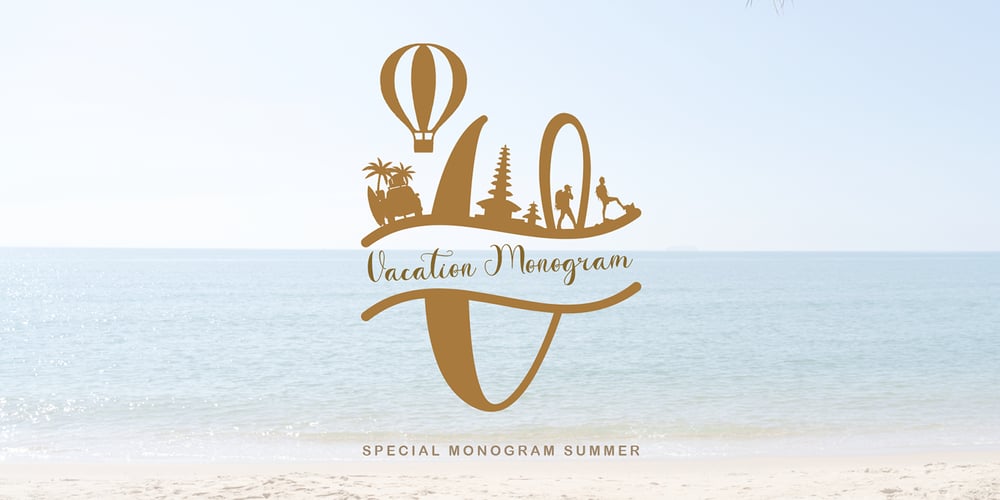
Vacation Monogram
Vacation Monogram font
Vacation Monogram Font Family was designed by Selvia Cahya and published by Selvia Design. Vacation Monogram contains 2 styles and family package options. “Vacation Monogram” is a script font combined with a monogram. This monogram is decorated with forms of tourism and traveling around the world.